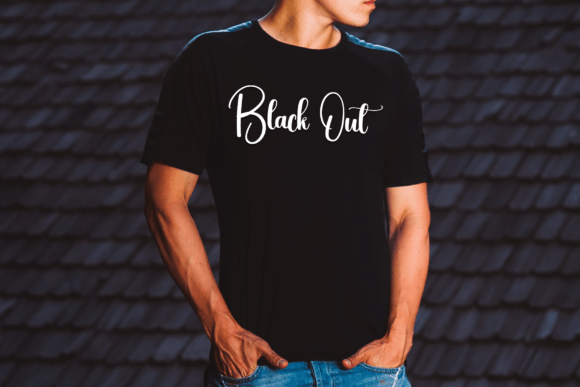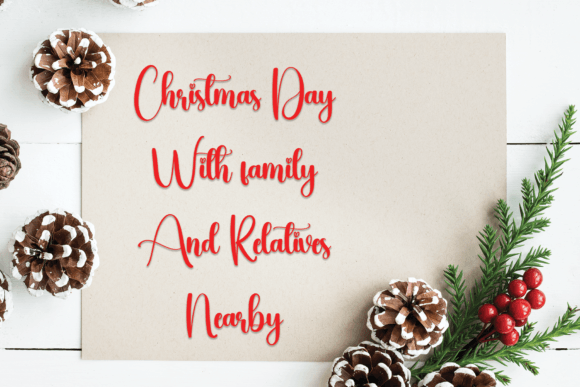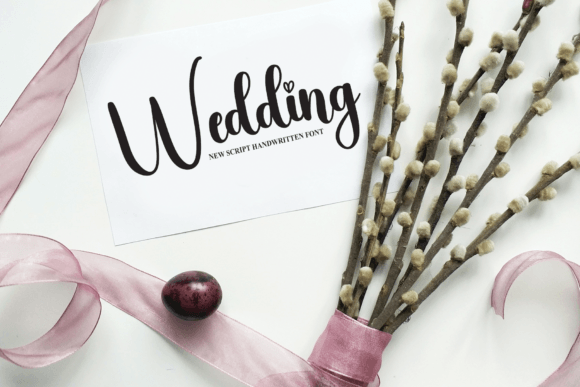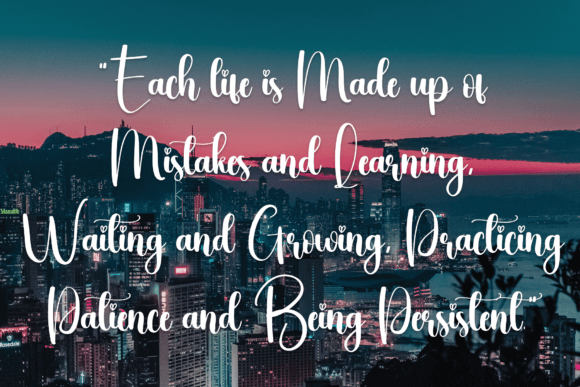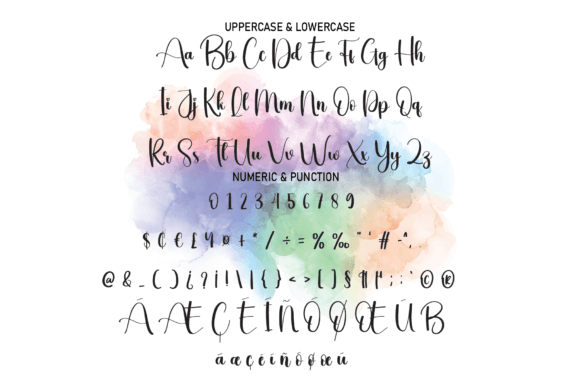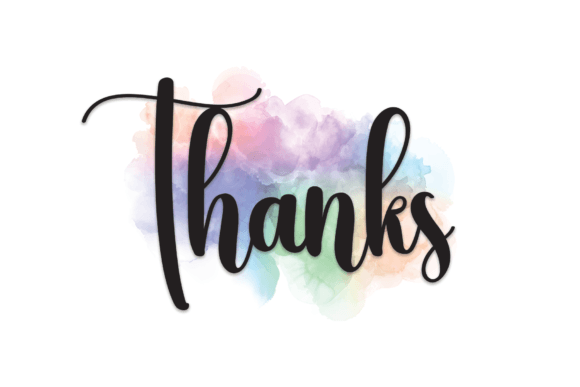
Introduction to Lips Font
Today, we’re excited to introduce you to the Lips Font – a cool and casual handwritten font that’s perfect for adding a personal touch to your designs. Whether you’re working on a digital project, crafting a greeting card, or creating a presentation, this high-quality font is sure to become your go-to design resource. And the best part? It’s available for free download, making it an accessible and valuable addition to any designer’s toolkit.
Lips Font
- Features a unique, hand-drawn design with a transparent background
- Perfect for use in graphic design, digital art, and other creative projects where a unique font is desired
- Includes a comprehensive character set, including uppercase and lowercase letters, numbers, and punctuation marks
Honest Review: Lips Font
I recently had the chance to work with the Lips Font, and I must say, it was a great addition to my design project. The font is perfect for creating eye-catching headlines and adding a touch of elegance to any creative project. ✨
One of the things that stood out to me was the high quality of the font. It’s crisp, clean, and easy to read, even at smaller font sizes. The transparent background made it easy to layer over other design elements without any issues. The free download option was also a major plus, as it saved me a significant amount of time and effort.
The Lips Font is available in a variety of weights and styles, making it a great resource for designers who need to create a range of typography effects. Some of the benefits of using this font include:
- High-quality design with a transparent background
- Available in multiple weights and styles
- Perfect for creative projects and design resources
However, there were a few limitations to the font that I encountered. The Lips Font doesn’t support bold text very well, and it can sometimes look a bit pixelated at smaller font sizes. ⚠️
Overall, I was impressed with the Lips Font and would recommend it to designers looking for a high-quality, easy-to-use font. While it may have a few limitations, the benefits far outweigh the drawbacks, and it’s a great addition to any design resource library.
Lips Font
Tips for Getting the Most Out of Lips Font
To get the most out of the Lips Font, use it in a creative way. Experiment with different font sizes and colors to add emphasis to your design. You can also use the font in combination with other design elements to create a unique look.
Common Use Cases for Lips Font
The Lips Font is perfect for a variety of creative projects, including logos, posters, and social media graphics. Its high-quality design and transparent background make it ideal for use in a range of applications.